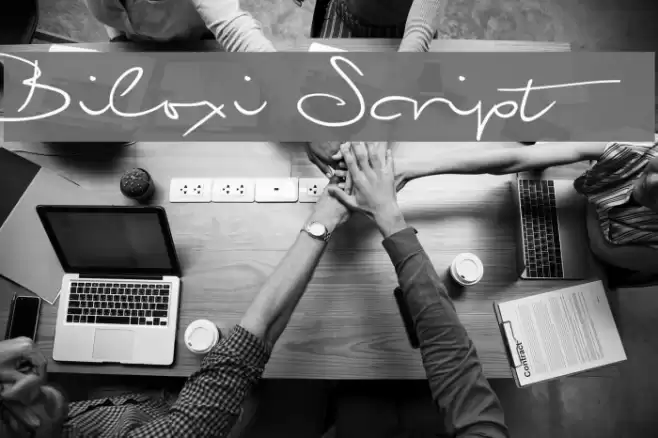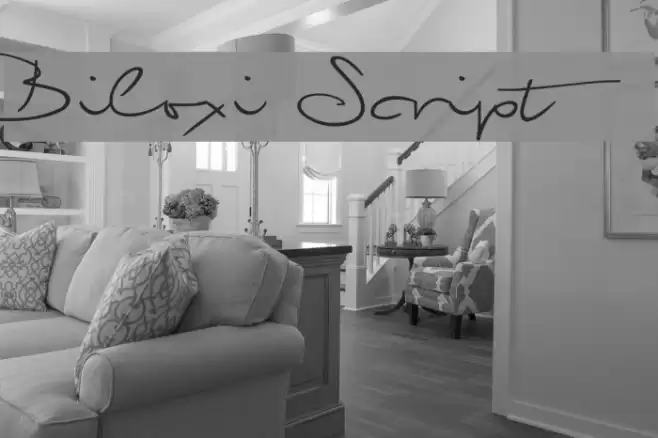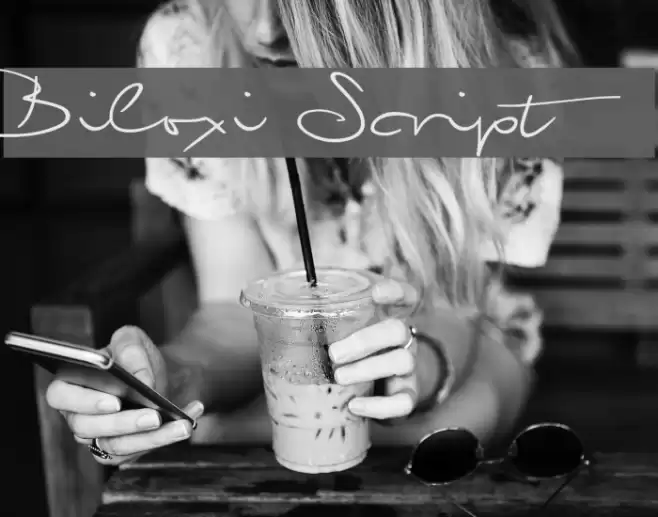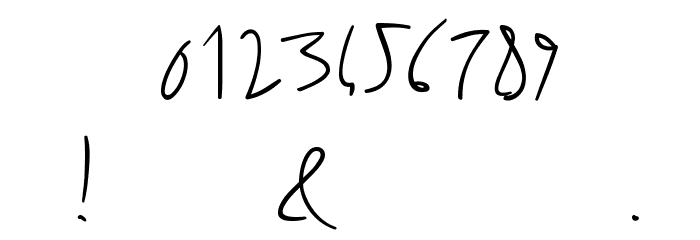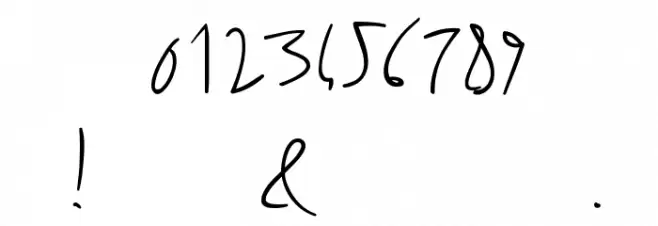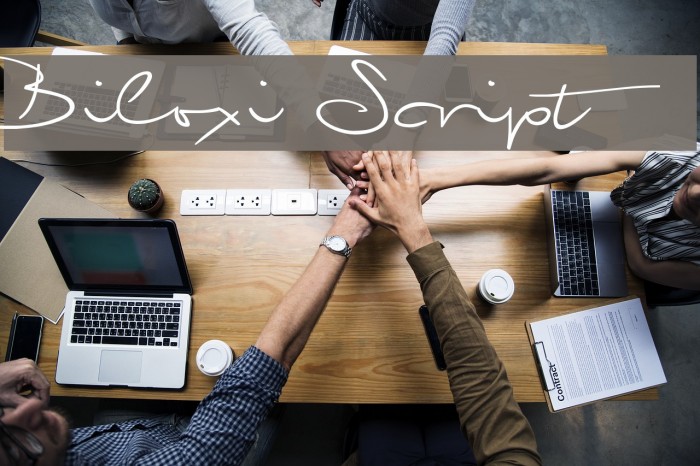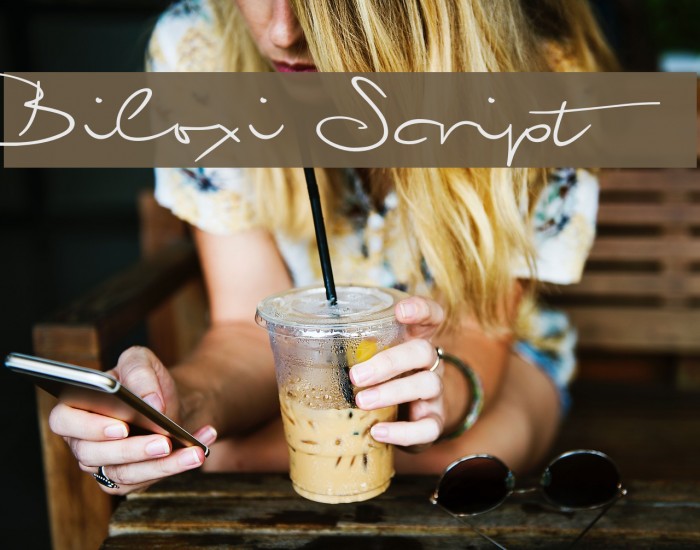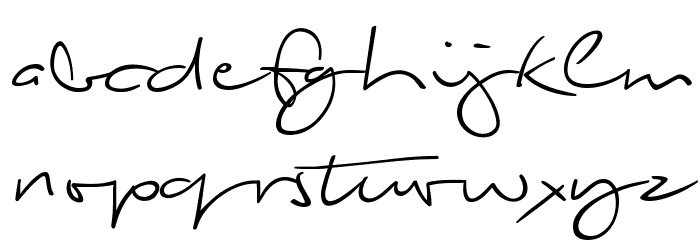
Biloxi Script Font
Biloxi Script Description
This font exudes a lively and dynamic character with its fluid, cursive style. The strokes are smooth and continuous, giving it a handwritten feel that is both elegant and approachable. The uppercase letters are slightly more elaborate, with playful loops and swirls, while the lowercase letters maintain a consistent flow, enhancing readability. The numerals and special characters are crafted with the same attention to detail, ensuring a cohesive look across all text elements. This font is perfect for adding a personal touch to any design, making it ideal for invitations, greeting cards, and branding projects.
A lively, cursive font with a handwritten feel, perfect for personal and elegant designs from Uncategorized fonts.
- Proposed Projects: Ideal for wedding invitations, personal branding, greeting cards, and elegant stationery.
- Overall Style: Elegant
- Use Case: Logos, Invitations, Greeting Cards